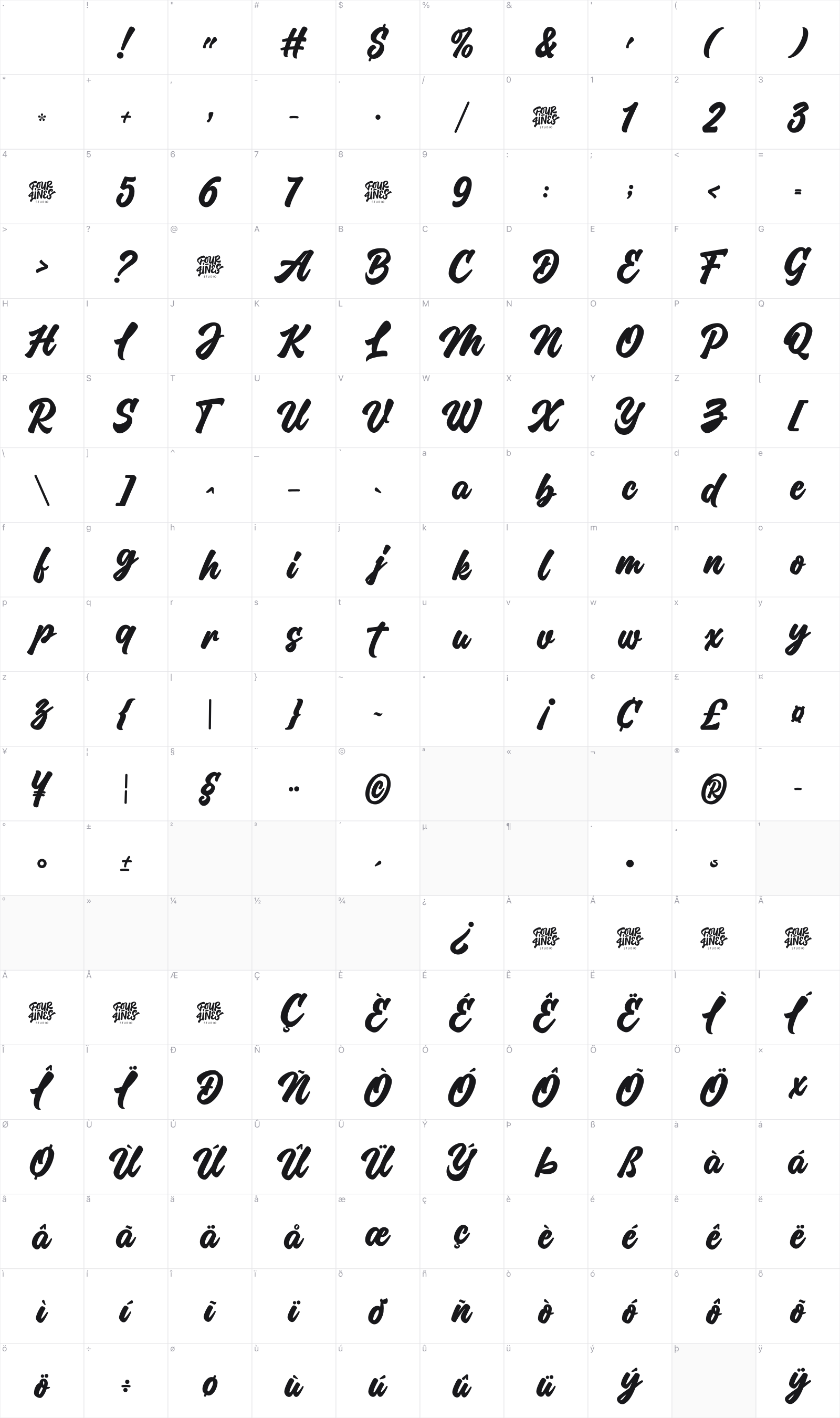
Million Orcids
Million Orcids is a bold brush script with flowing connected strokes and strong thick-to-thin contrast. It carries the confident, hand-lettered energy of classic sign painting, with wide loops and smooth joins that keep it readable at large sizes. The weight and personality make it a natural choice for brand identities, packaging, and anywhere a warm, expressive headline is needed.